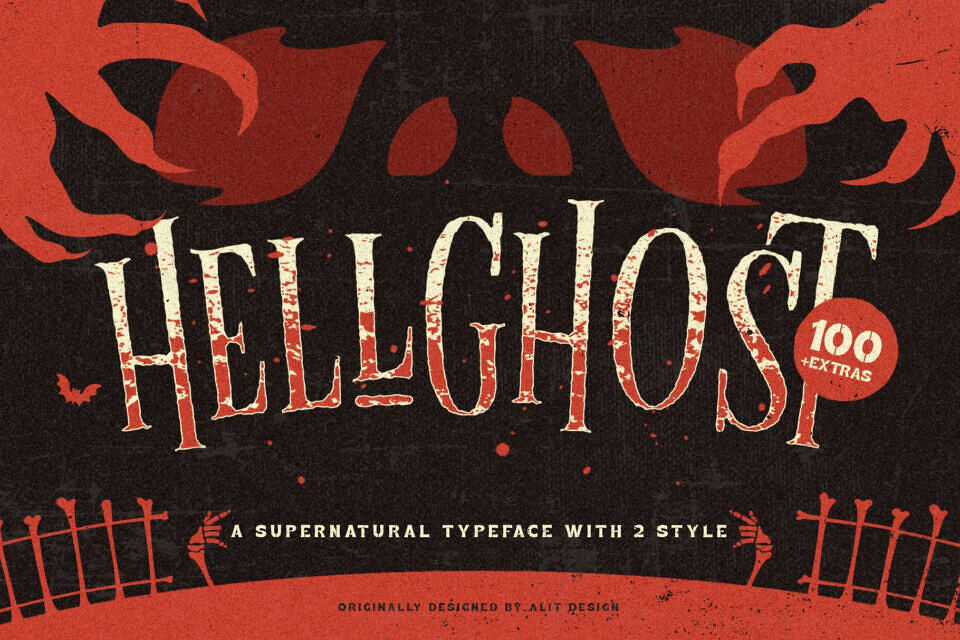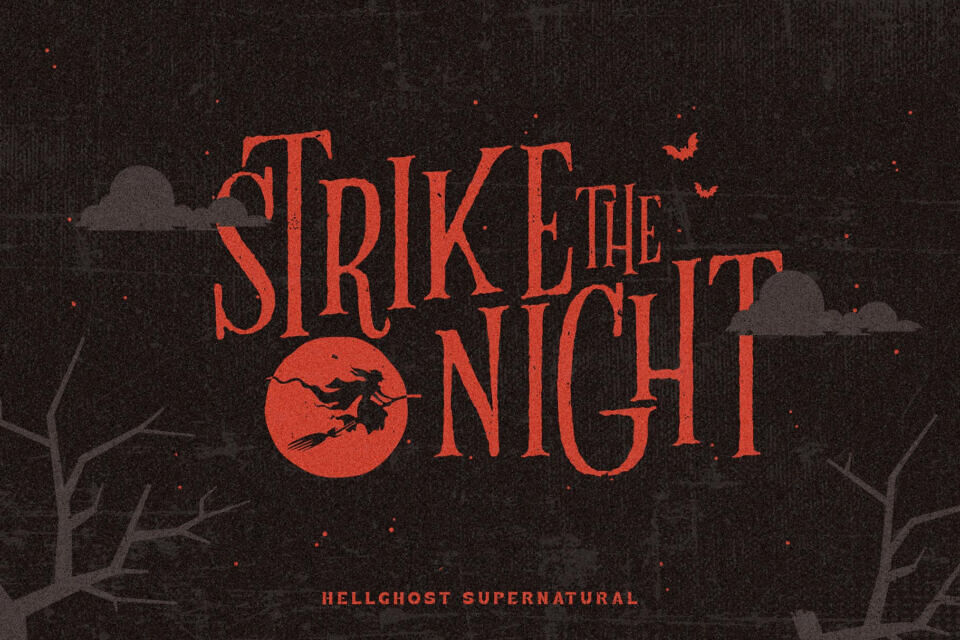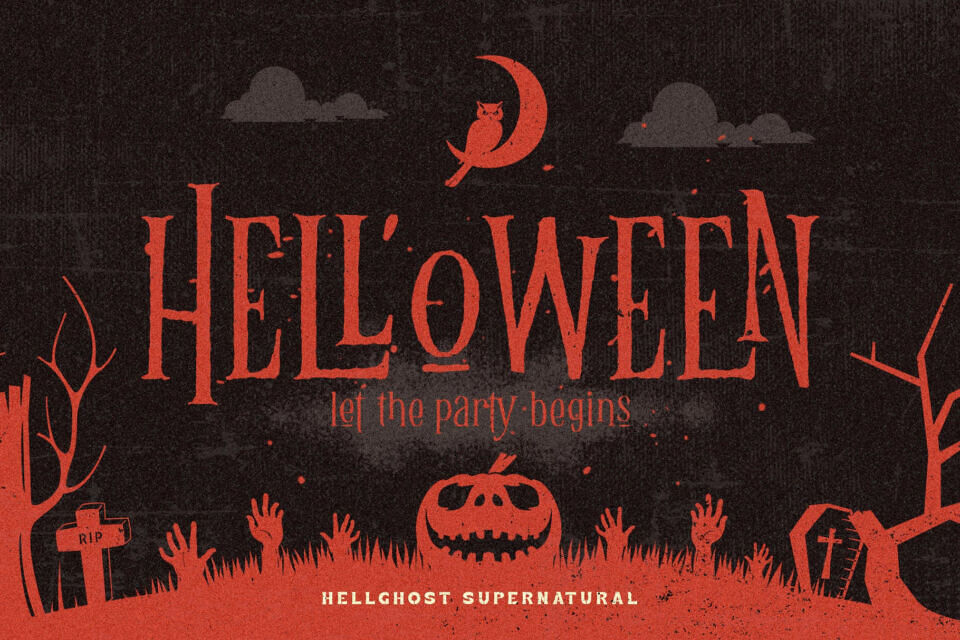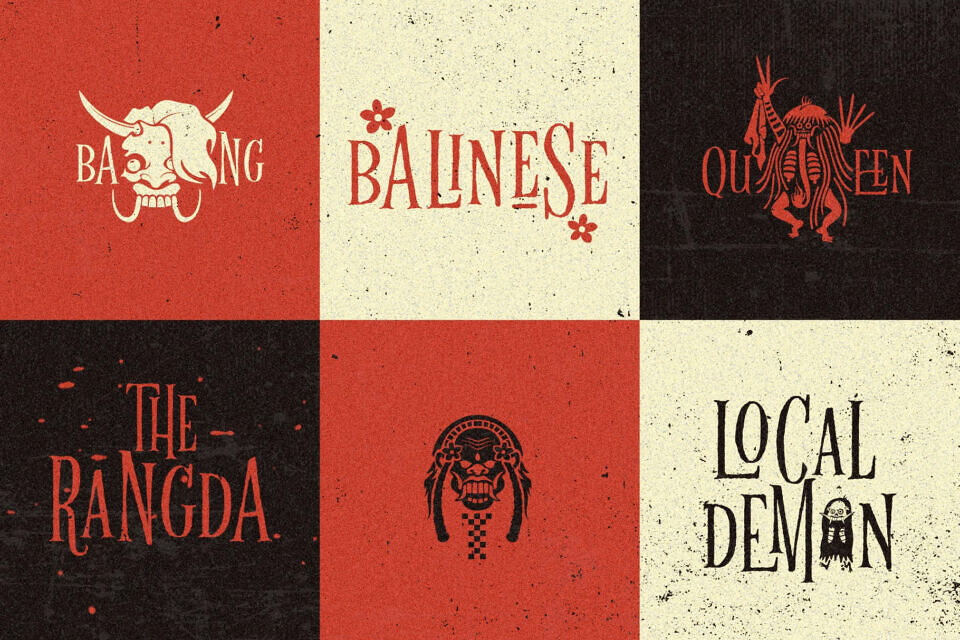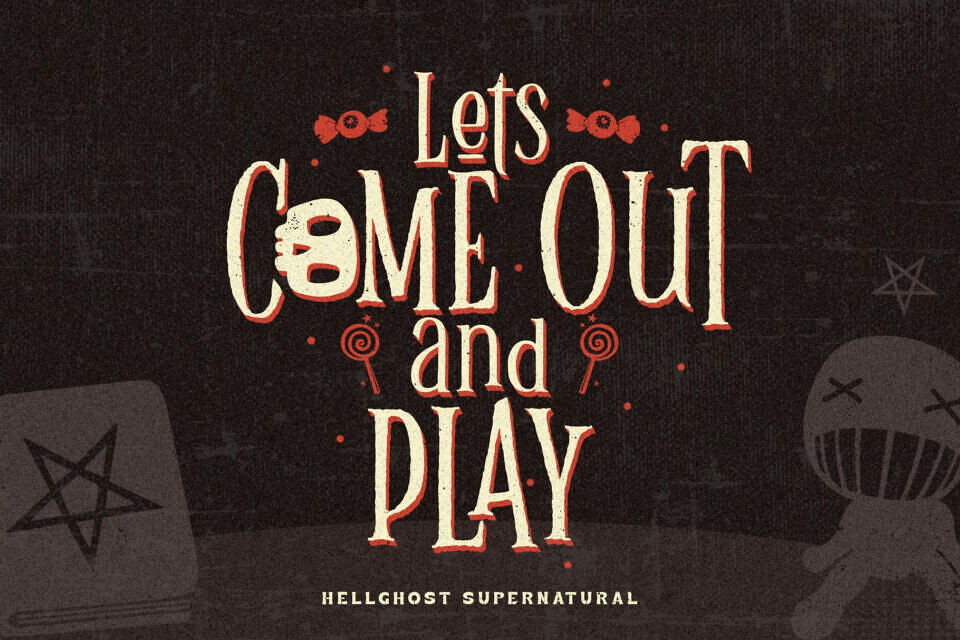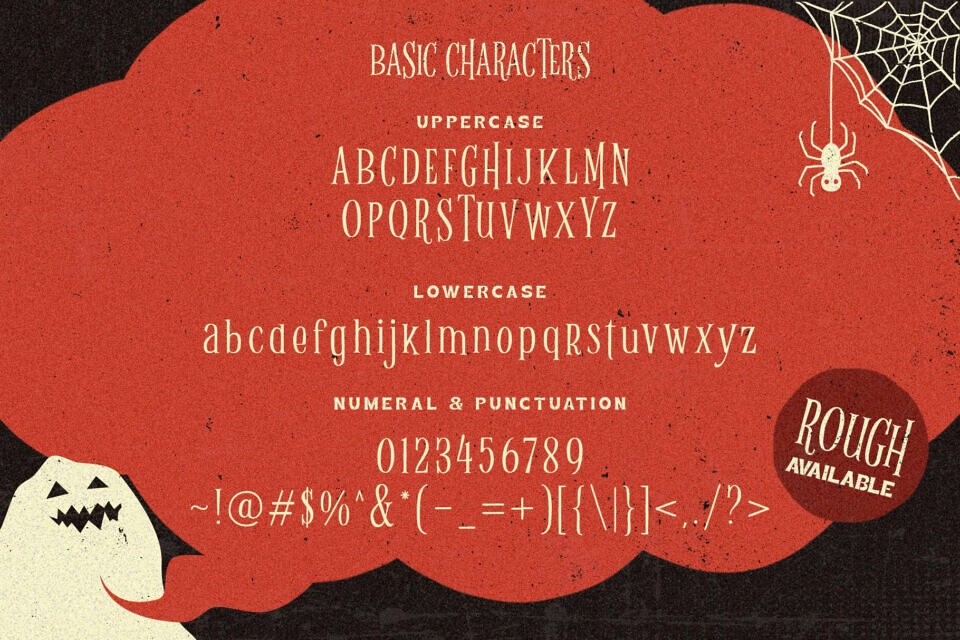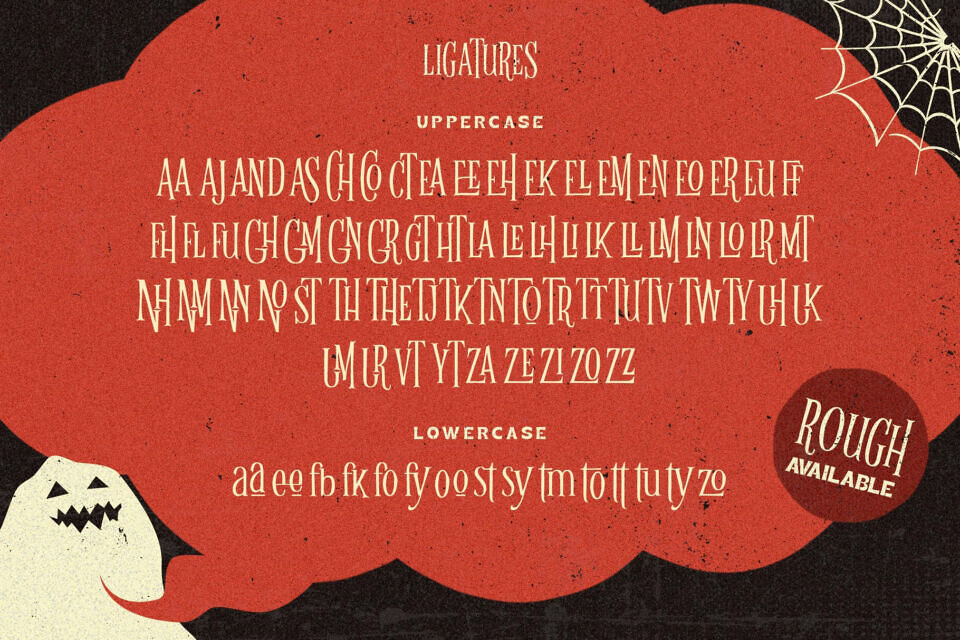
Hellghost Font
Hellghost typeface is designed for the needs of design concepts themed about Halloween and events in October and November. The Hellghost font uses a serif font style that varies by distorting its shape randomly but still looks good to look at and makes the designs it creates look bold and unique. In addition to the standard type, Helloghost also has a rough version which makes the design look more rusty and suitable for the Halloween concept.
The Helloghost font comes with a bonus: 100 Halloween-themed illustrations that simplify design creation. It’s ideal for dark, Halloween-inspired projects like magazine covers, brochures, and social media ads.